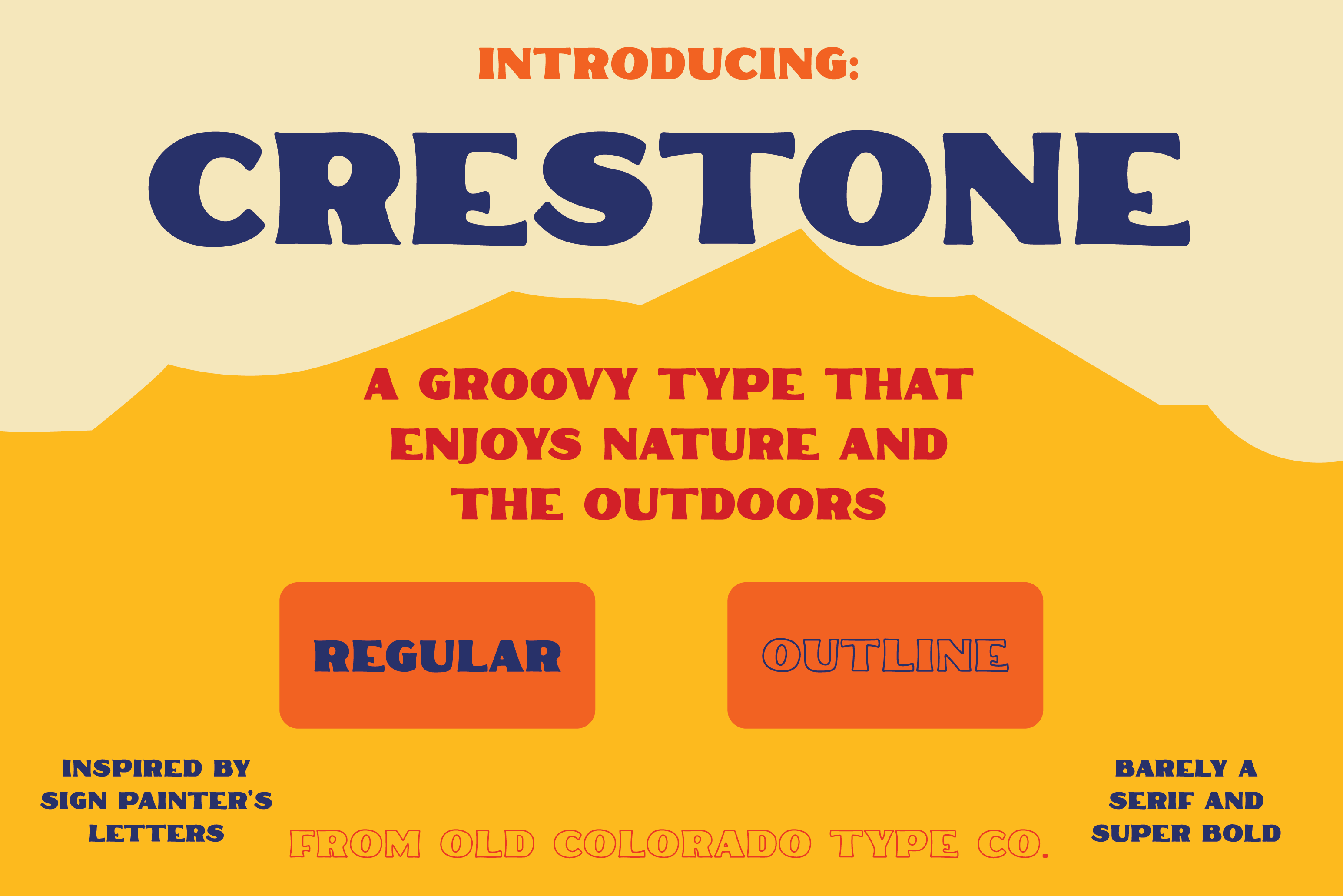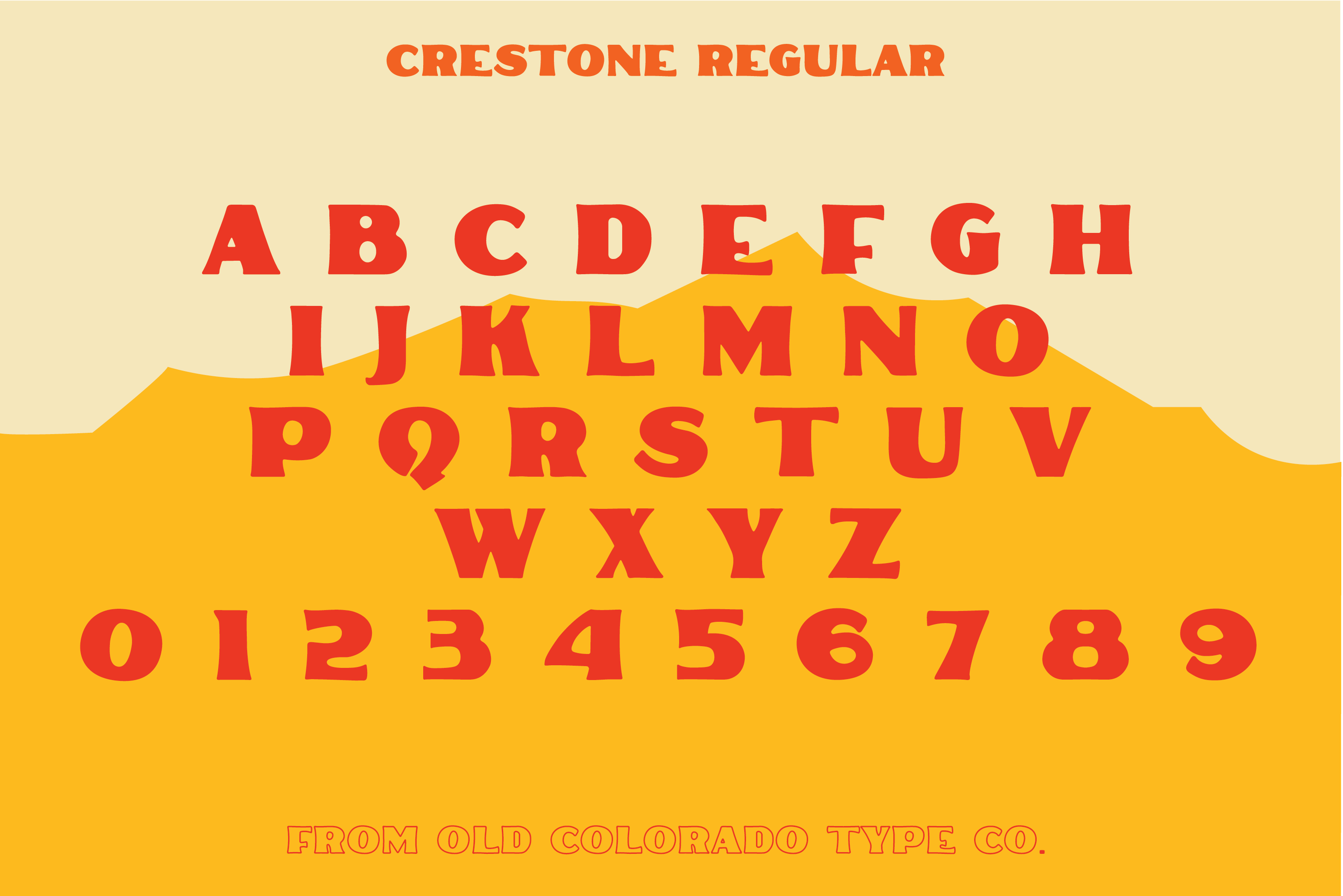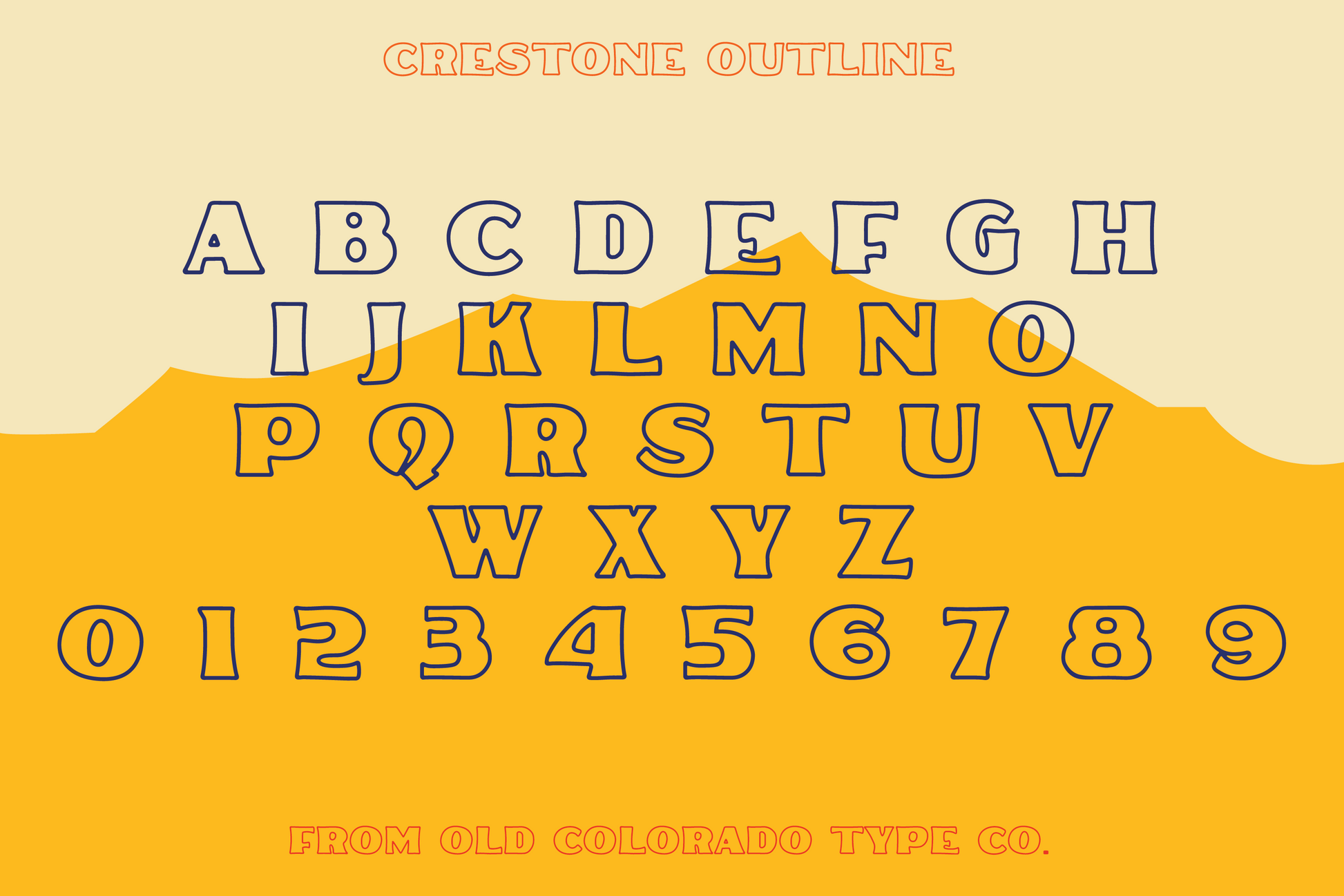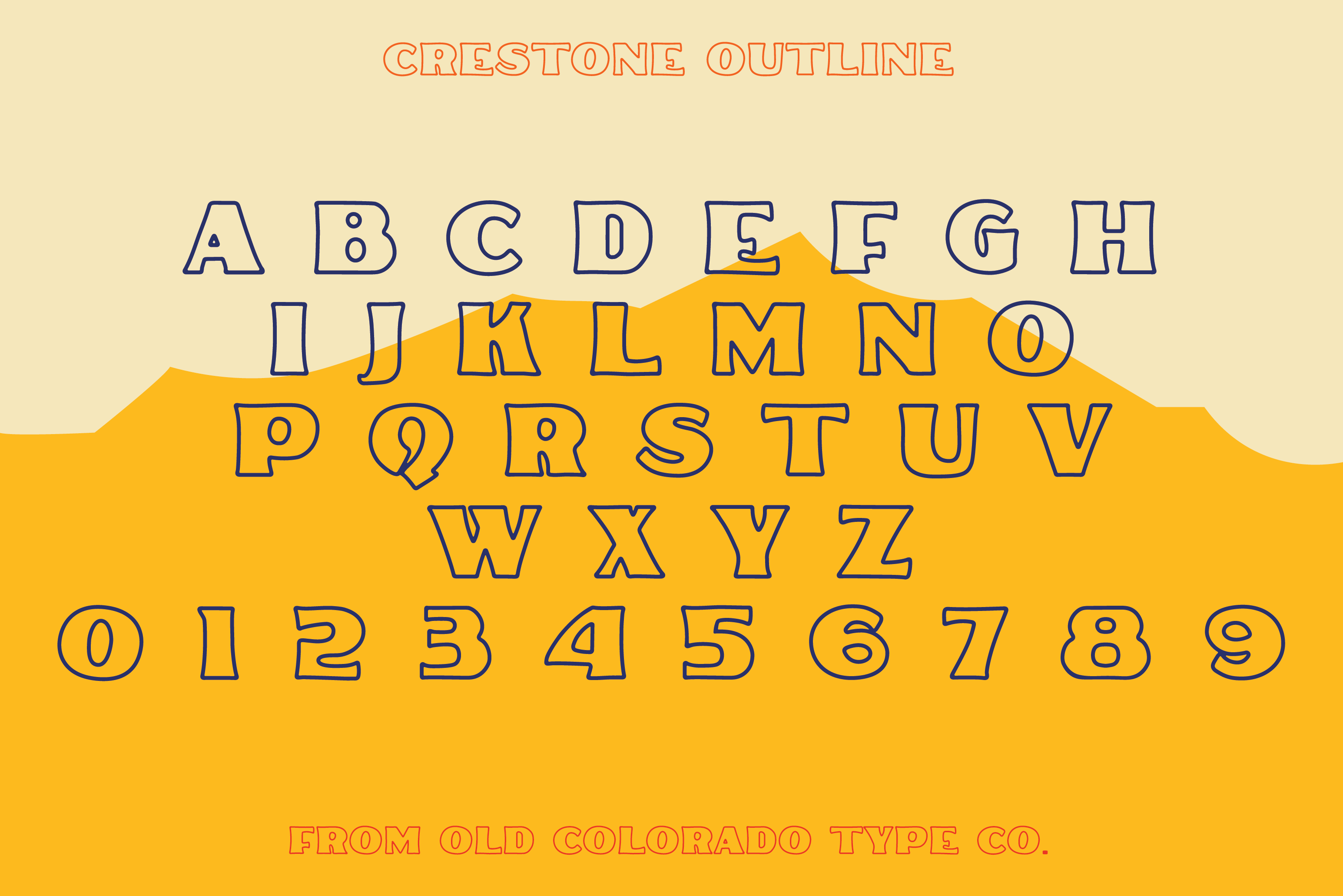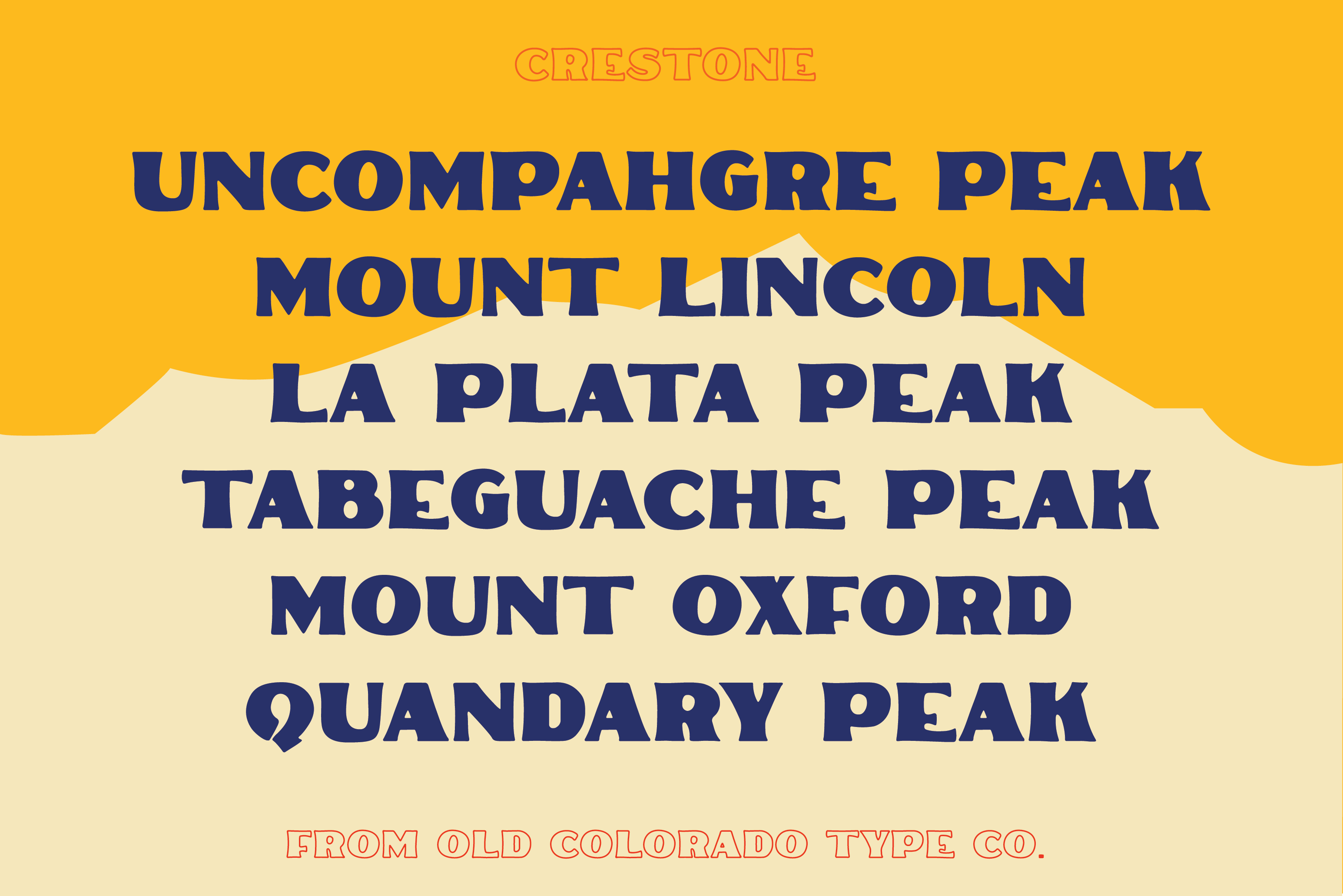
Crestone Typeface
Can you even call this a serif? Maybe? Inspired by vintage type and national forrest signs. Old Colorado Type Co. is the moniker for my side quest as a type designer :)